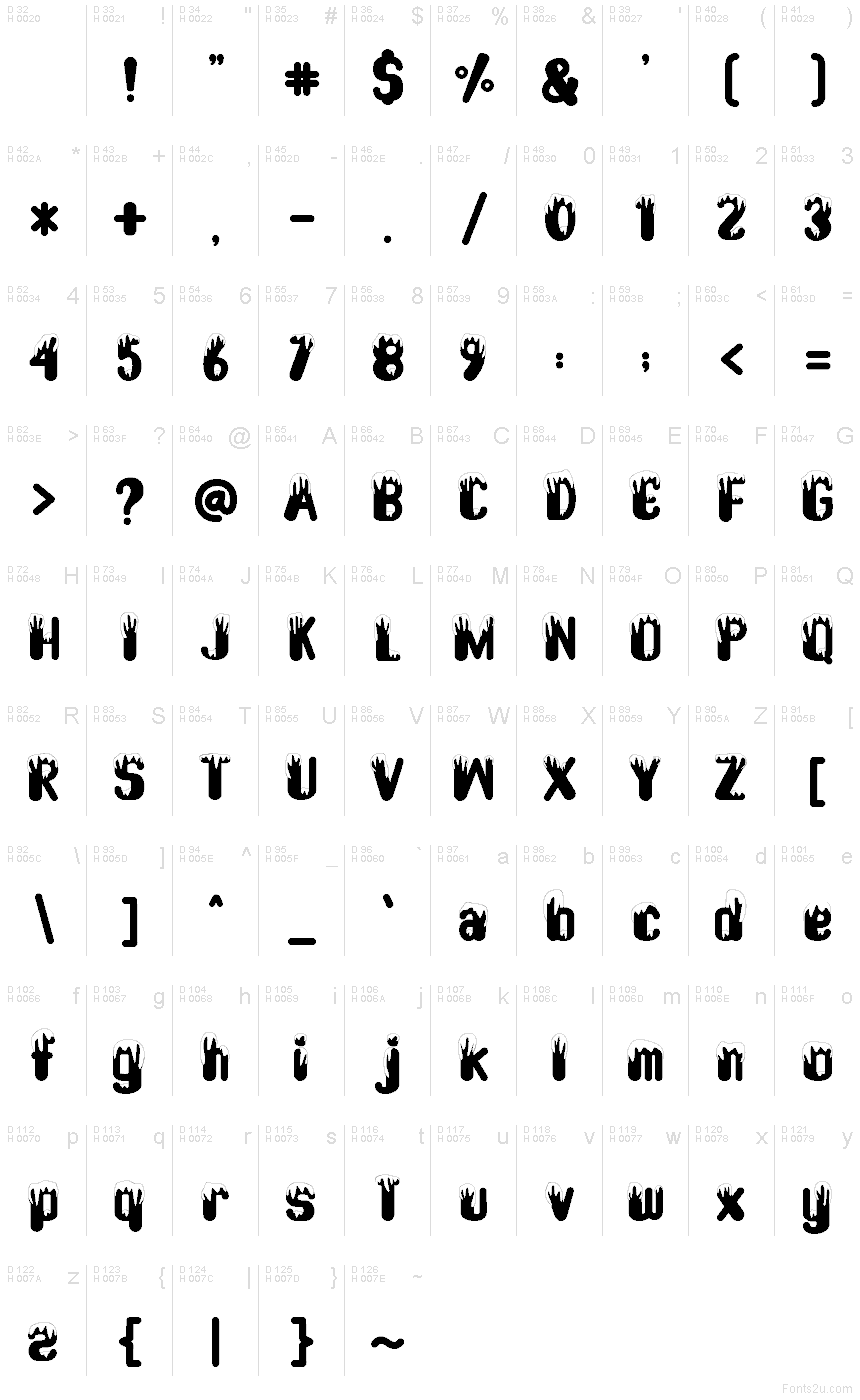
Snow Play font by Letterafa Studio is a free decorative display typeface that looks like letters dipped in fresh, sticky snow. Chunky forms, rounded corners, and drippy, icicle-like tops give it that just-built-snowman feeling, full of playful winter energy. The bold shapes stay legible even when scaled down, so your holiday messages feel fun and festive, not fussy.
Using Snow Play, you can instantly winterize Christmas cards, party invitations, gift tags, social media posts, posters, and classroom printables. This free font shines on anything that needs a cozy, snowy headline with plenty of personality. For a balanced look, pair Snow Play with a clean sans serif for body text and keep this type big and bright to let the frosted details really show.